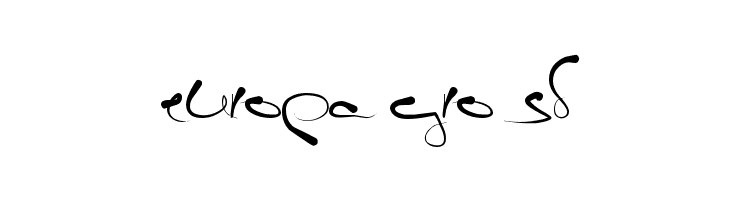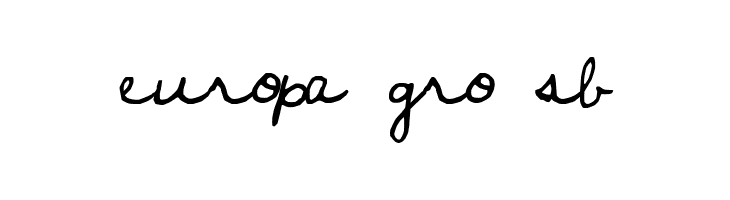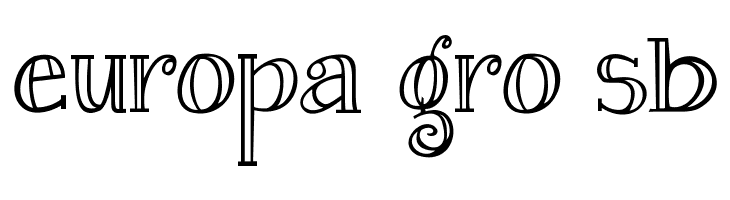
( Fonts by www.kimberlygeswein.com - Kimberly Geswein )
An elegant, cursive font with a sophisticated, handwritten style.
( Fonts by www.kimberlygeswein.com - Kimberly Geswein )
A playful, handwritten font with smooth, flowing lines and a casual style.
( Fonts by www.kimberlygeswein.com - Kimberly Geswein )
An elegant script font with intricate swirls and decorative flourishes.
( Fonts by www.kimberlygeswein.com - Kimberly Geswein )
A playful, cursive script font with elegant loops and swirls.
( Fonts by www.kimberlygeswein.com - Kimberly Geswein )
A playful, rounded font with a whimsical and friendly appearance.
( Fonts by www.kimberlygeswein.com - Kimberly Geswein )
A playful, chunky font with whimsical curls and bold strokes.
( Fonts by www.kimberlygeswein.com - Kimberly Geswein )
A playful and whimsical font with curly, decorative elements.
( Fonts by www.kimberlygeswein.com - Kimberly Geswein )
A playful serif font with curly, whimsical elements.
( Fonts by www.kimberlygeswein.com - Kimberly Geswein )
A graceful, flowing script font with elegant, continuous strokes.
( Fonts by www.kimberlygeswein.com - Kimberly Geswein )
A whimsical collection of hand-drawn floral doodles in black and white.
( Fonts by www.kimberlygeswein.com - Kimberly Geswein )
A playful, handwritten font with rounded, flowing characters and a cheerful vibe.
( Fonts by www.kimberlygeswein.com - Kimberly Geswein )
A whimsical and decorative font with playful curls and swirls.
( Fonts by www.kimberlygeswein.com - Kimberly Geswein )
A whimsical, cursive font with a romantic, handwritten style.
( Fonts by www.kimberlygeswein.com - Kimberly Geswein )
A bold, textured font with a playful, artistic design.
( Fonts by www.kimberlygeswein.com - Kimberly Geswein )
A whimsical handwritten font with decorative swirls and curls.
( Fonts by www.kimberlygeswein.com - Kimberly Geswein )
A playful, decorative font with characters enclosed in circular borders.
( Fonts by www.kimberlygeswein.com - Kimberly Geswein )
A whimsical, hand-drawn font with playful, uneven characters.
( Fonts by www.kimberlygeswein.com - Kimberly Geswein )
A playful and whimsical font with decorative elements and dynamic strokes.
( Fonts by www.pia-frauss.de )
An elegant, classic script font with flowing, connected characters.
( Paul Lloyd Fonts )
A modern, geometric font with tall, narrow characters and clean lines.
( Paul Lloyd Fonts )
A bold, modern font with geometric elements and high contrast.
( Astageni Studio - Nur Solikh - nursolikh.blogspot.com )
A bold, geometric font with a strong, industrial style.
A bold, angular font with a geometric and modern style.
( Fonts by Thomas Ledin - tomledin.com )
A playful, hand-drawn font with bold, irregular strokes and a casual style.
( Fonts by Jano )
An expressive, artistic font with fluid, cursive strokes and dynamic letterforms.
A futuristic, geometric font with rounded edges and uniform line thickness.
A dynamic, Japanese calligraphy-inspired font with bold, sweeping strokes.